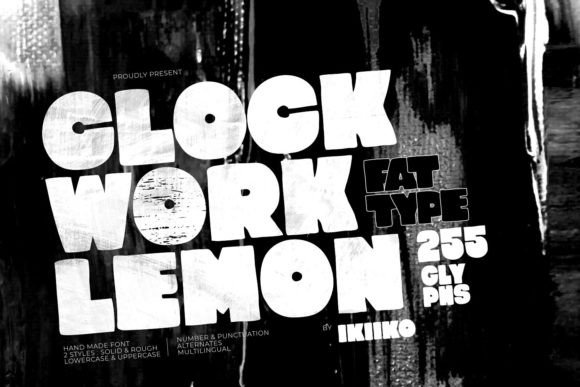
Introducing Clockwork Lemon Font - the perfect blend of vintage and modern design. Created by ikiiko, this sans-serif font is sure to capture your attention with its classic yet stylish look. Clockwork Lemon is the ultimate choice for all your poster research needs, with its unique features that are bound to make your project stand out.
With its bold lines and sharp angles, this font strikes a perfect balance between modern and timeless design. Whether you are designing a poster for an event, creating an eye-catching brochure, or revamping your website, Clockwork Lemon Font is the perfect solution to give your project a touch of sophistication.
So, why choose Clockwork Lemon Font? It's simple. This font has everything you need to create a visually stunning and memorable design. Whether you're looking to make a bold statement or create a subtle yet sophisticated look, Clockwork Lemon Font has got you covered. With its vintage charm and modern edge, it's the perfect font for any project.